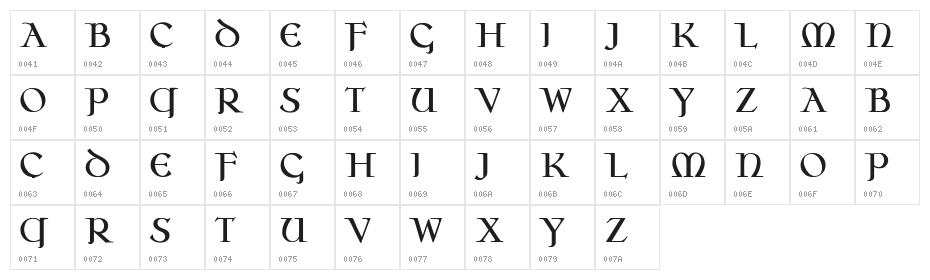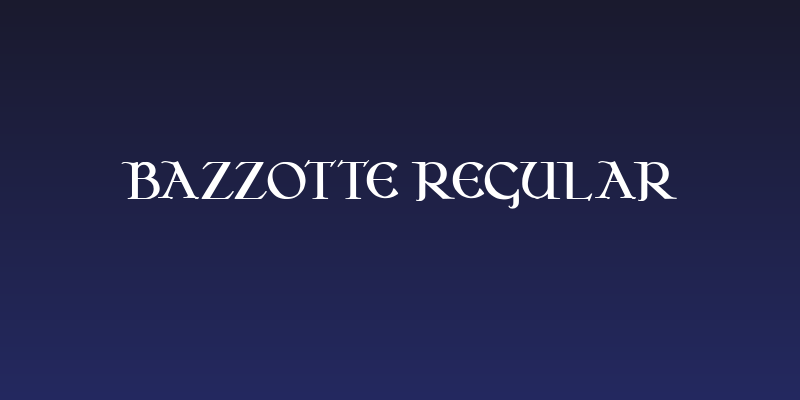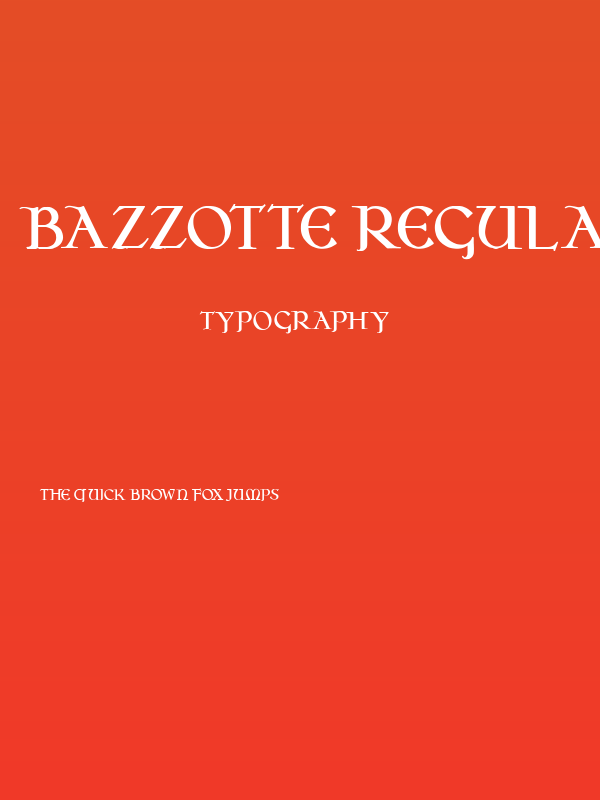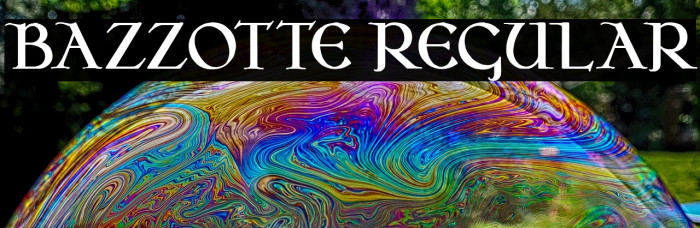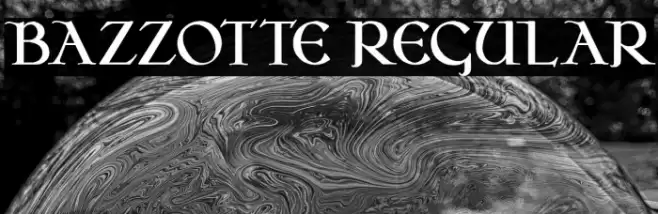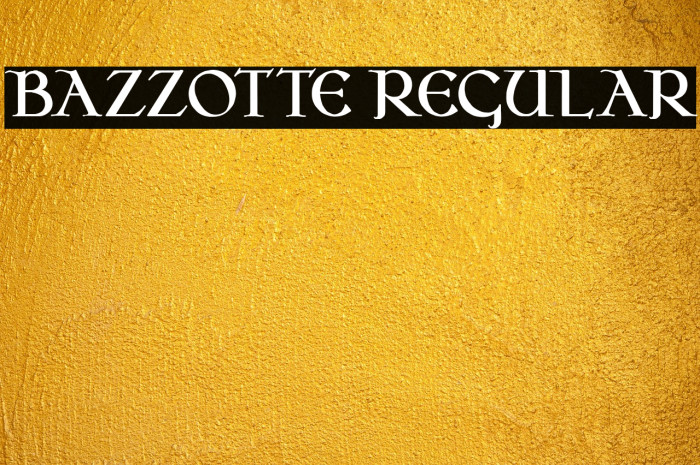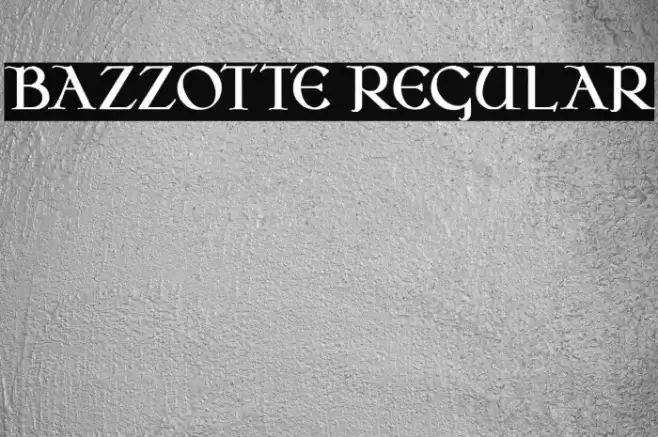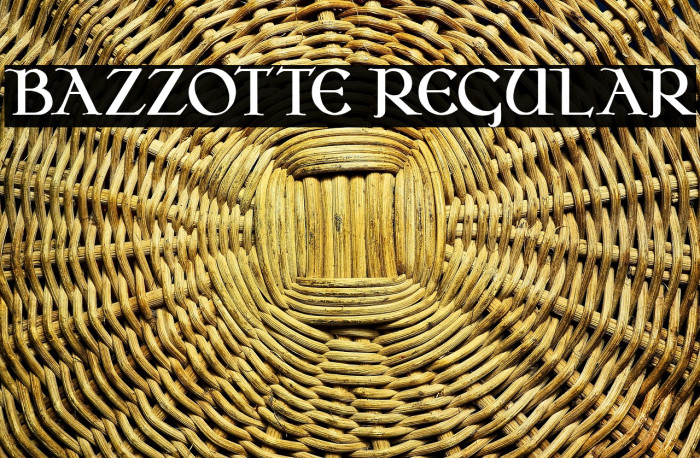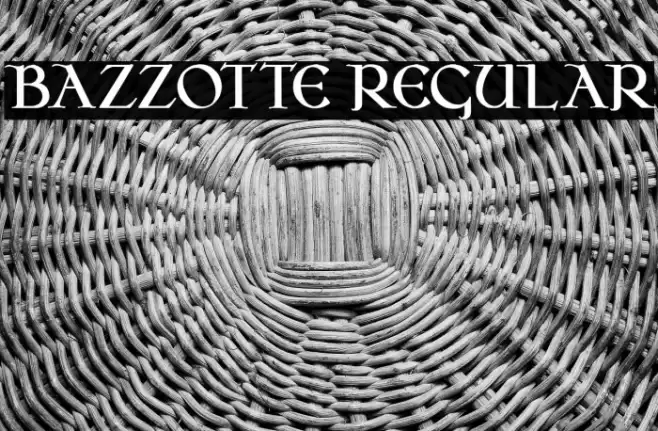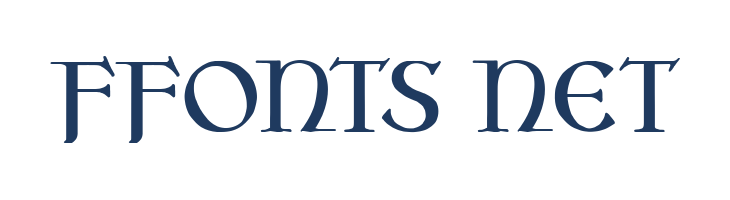
Bazzotte Regular Font
Bazzotte Regular Description
This font exhibits a classic and elegant style reminiscent of traditional serif typefaces with a modern twist. The characters feature sharp, angular serifs and a slightly condensed form, giving it a sophisticated and refined appearance. The uppercase letters are particularly striking, with a strong presence and distinctive flair. The lowercase letters maintain a consistent style, ensuring readability while adding a touch of elegance. The numerals and special characters are designed to complement the overall aesthetic, making this font versatile for various applications.
| Use Case | Headlines, Logos, Editorial design |
| Proposed Projects | Ideal for use in formal invitations, luxury branding, editorial design, and high-end product packaging. |